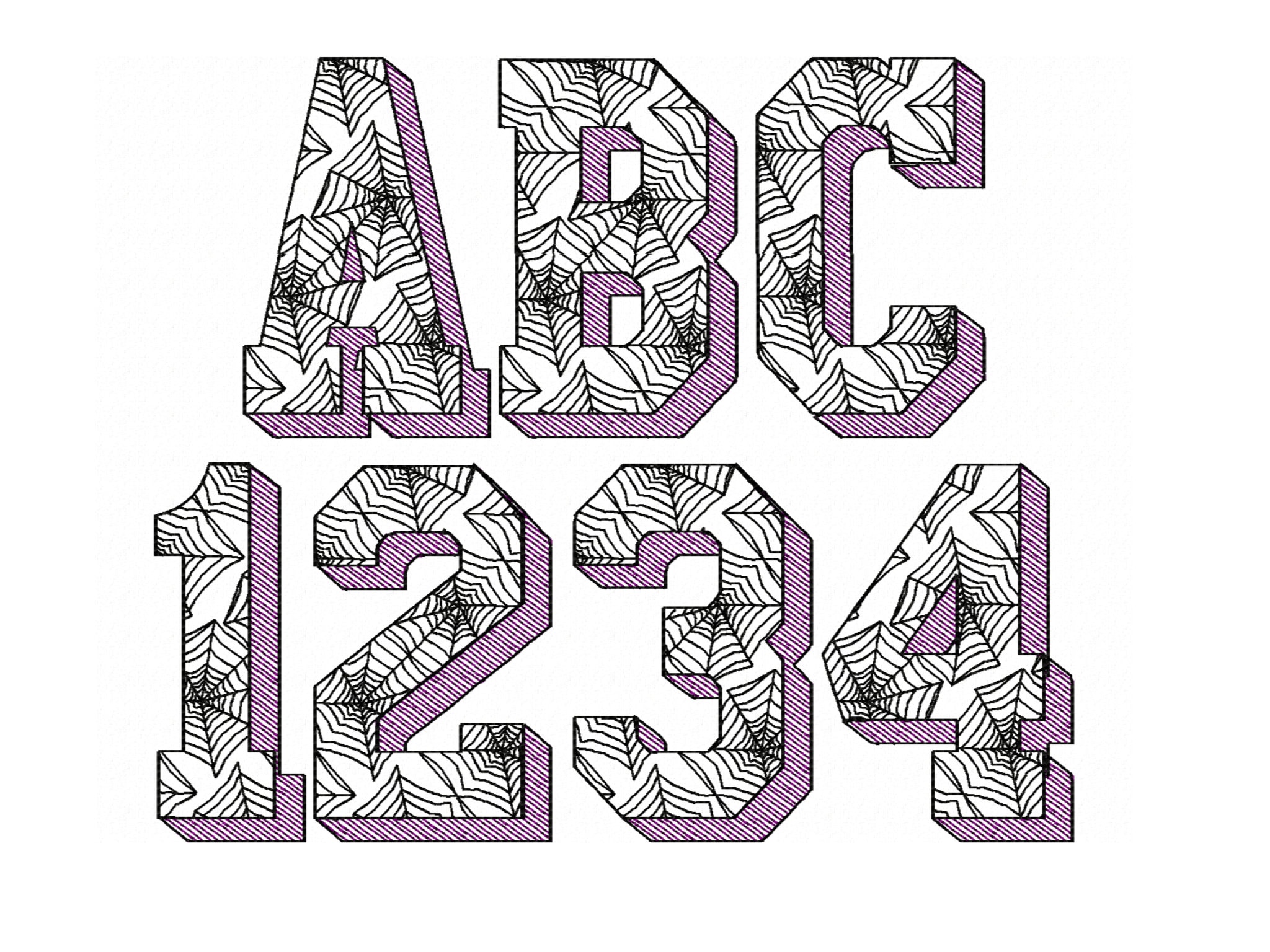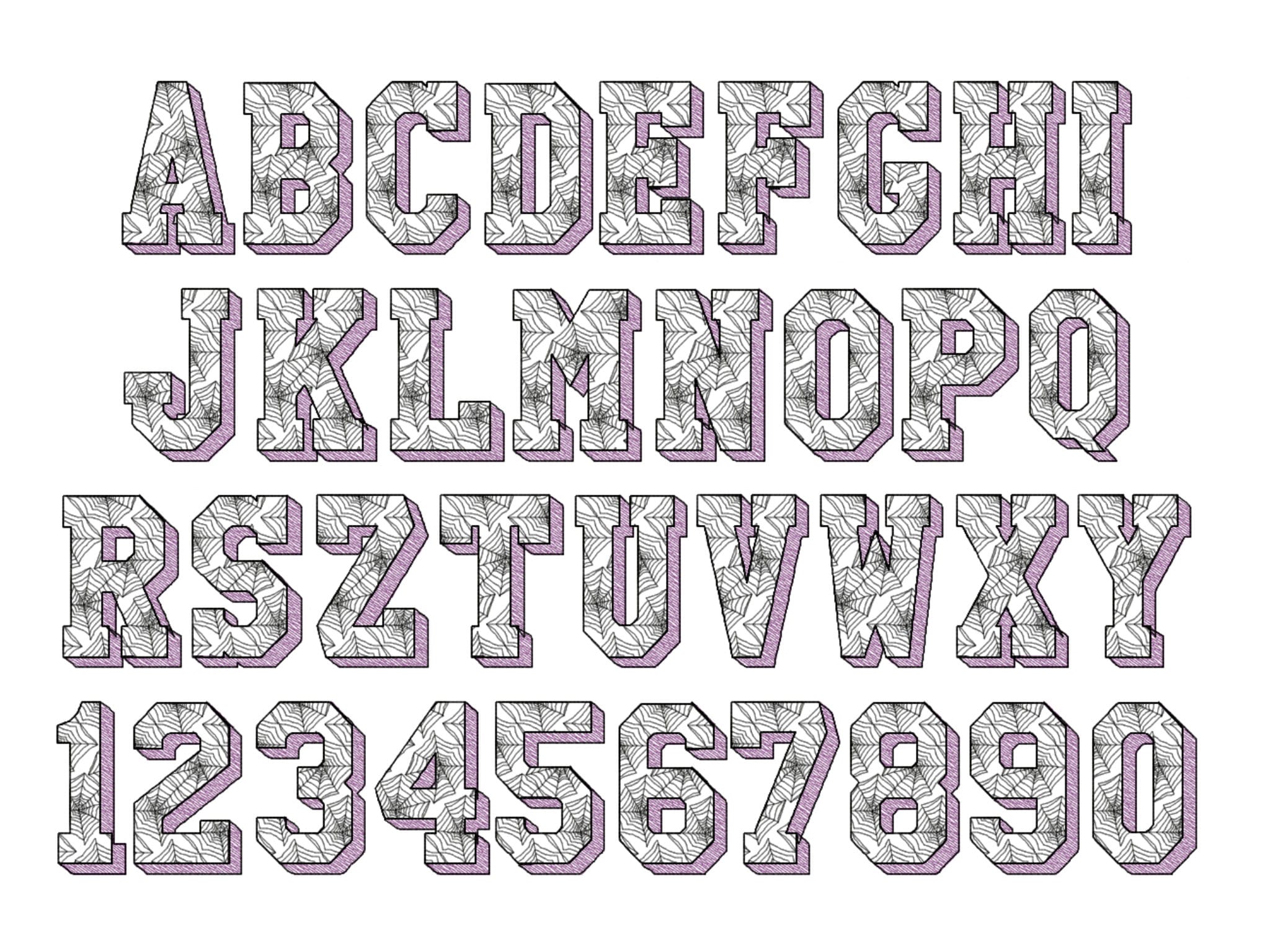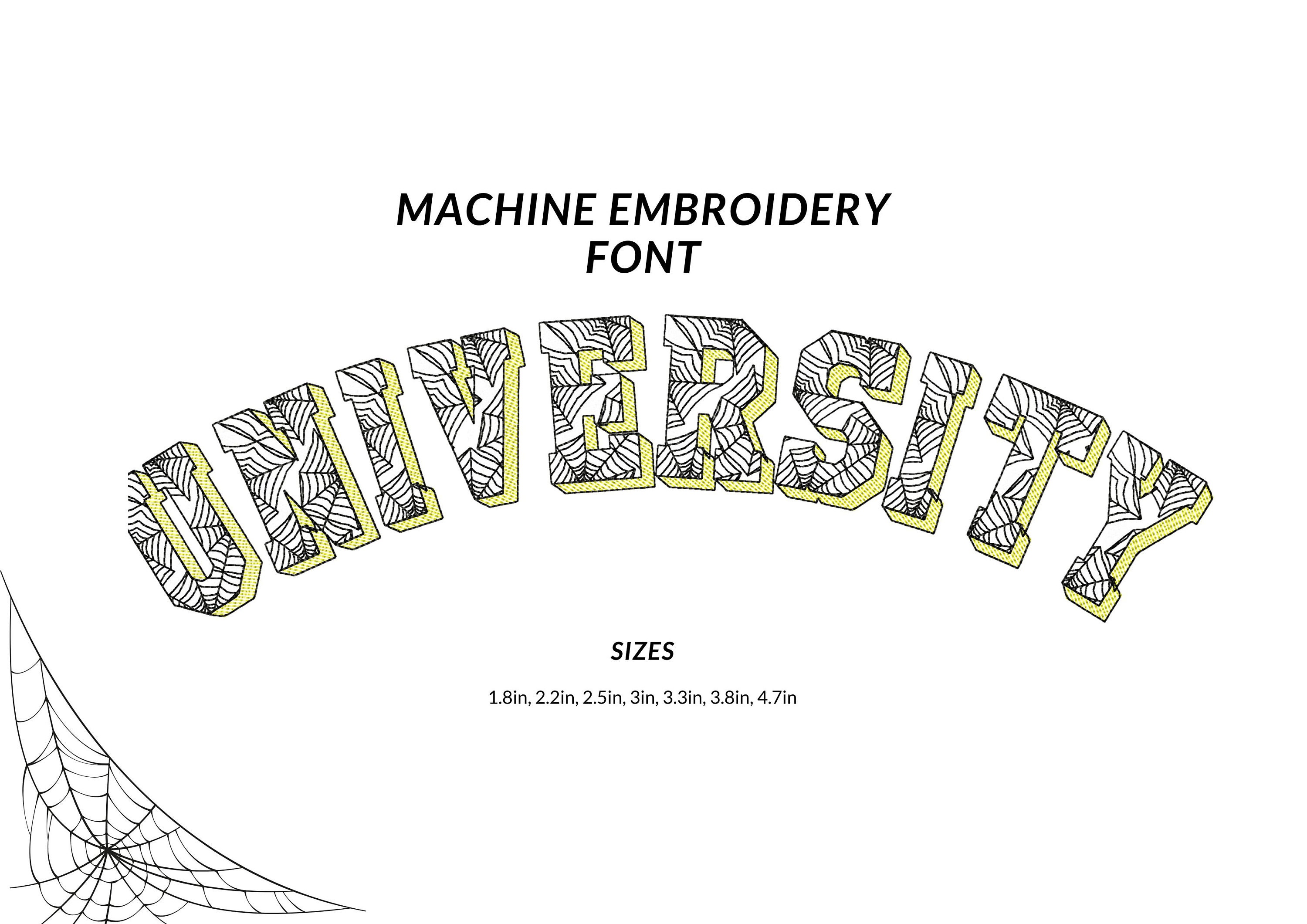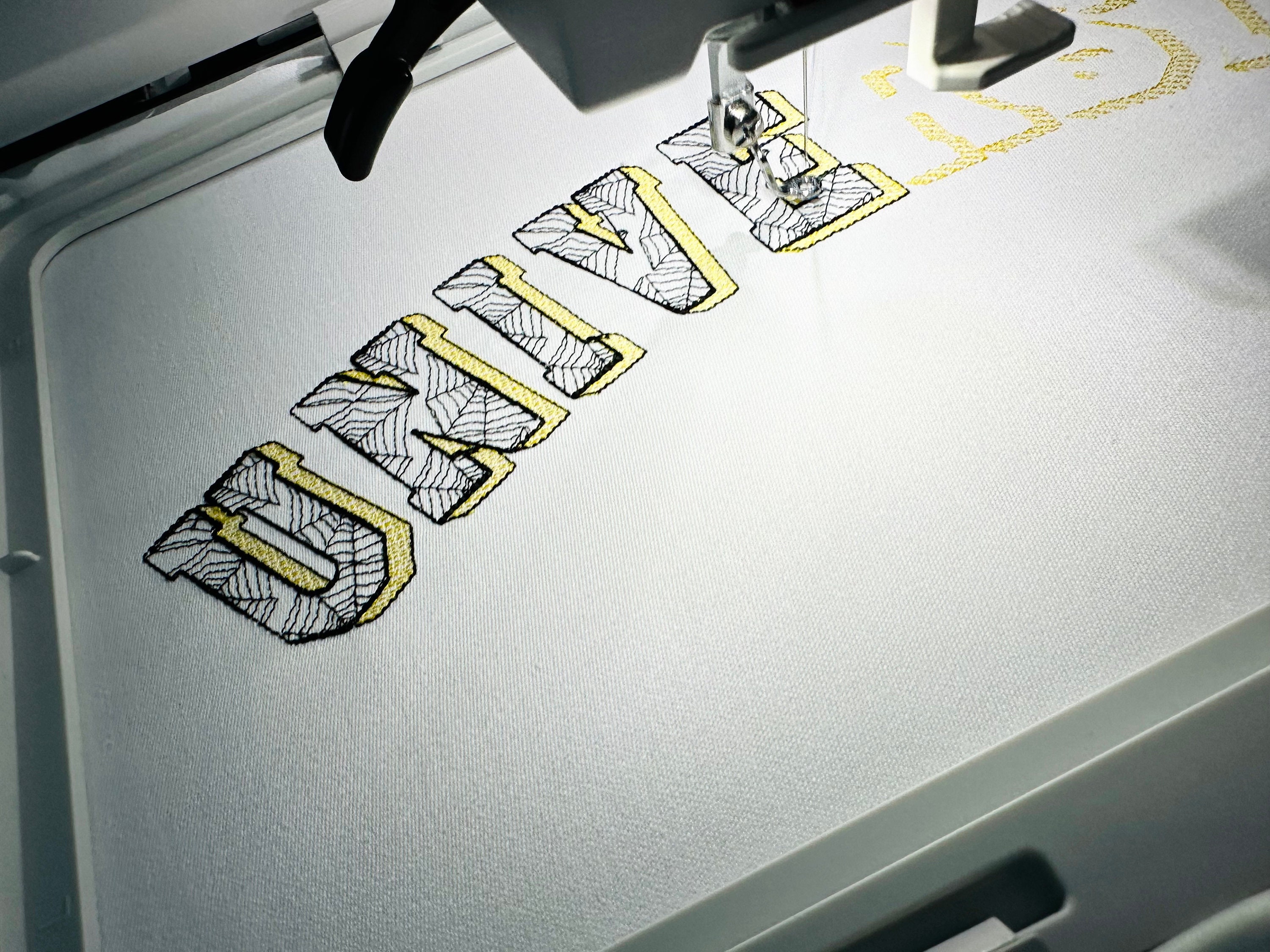
Spiderweb shadow Font embroidery spider's web alphabet Halloween cobweb shadowed letters machine embroidery designs Boo spooky font
Whole alphabet A-Z uppercase letters, and numbers.
This is a light stitch design. The background fabric looks through. Stunning effect!
The spider web pattern is a part of the design.